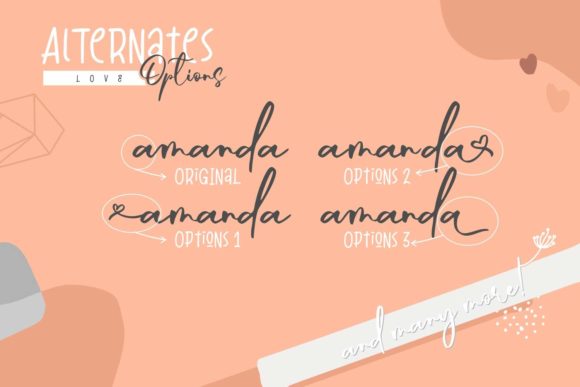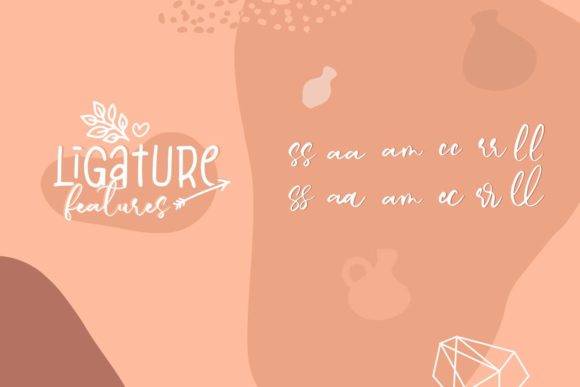
About Sociogram Font
“Sociogram” is a script font that exudes a delicate and fashionable charm, making it an ideal choice for a wide range of creative projects. With its graceful and flowing letterforms, this font is a perfect companion for crafting stunning logos that capture the essence of your brand. Its stylish and contemporary vibe lends itself seamlessly to t-shirt designs, adding a touch of sophistication and flair to your merchandise.
But “Sociogram” doesn’t stop at logos and apparel – its versatility shines through in various other branding projects. Whether it’s product packaging that needs a touch of elegance, creative products that require a unique typographic identity, or any other design endeavor that demands a stylish script font, “Sociogram” rises to the occasion and delivers exceptional results.
Its adaptability extends beyond branding, making it an excellent choice for various print and digital materials. From posters and flyers that command attention to social media graphics that engage your audience, “Sociogram” effortlessly infuses a sense of charm and allure into every design it graces.
Furthermore, its ability to enhance the visual appeal of your projects extends to various contexts, ensuring that your creativity knows no bounds. Whether you’re working on a fashion-related campaign, a lifestyle brand, or any other venture that requires a touch of sophistication, “Sociogram” rises to the occasion, elevating your designs to new levels of beauty and elegance.
In essence, “Sociogram” is more than just a font – it’s a versatile tool that empowers your creative vision with a touch of delicate fashion and style. Its exceptional ability to seamlessly blend into various design contexts while maintaining its extraordinary appeal makes it a font that truly shines. With “Sociogram,” you have the means to create designs that are not only visually striking but also resonant with your brand’s essence.